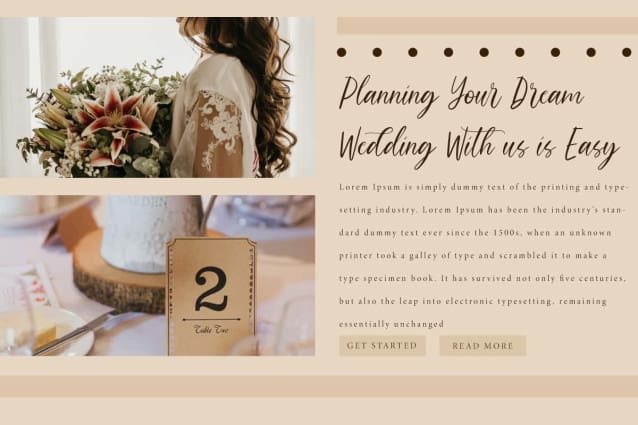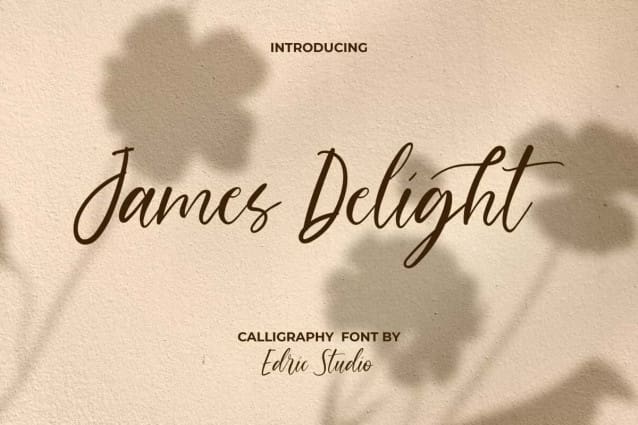
James Delight Font
James Delight Font is an organic handmade aesthetic calligraphy font that feels authentic with a personal charm. This font has been carefully and thoughtfully designed to recreate natural handwritten text. Perfectly fit for branding logos, business card, cover, headers, headline, logos, posters, quotes, stickers, title, watermarks, websites, and more.
James Delight Font comes with a full set of Uppercase and Lowercase letters, Number, Punctuation, Symbol, Ligatures and Alternates. It is a classy calligraphy type with a modern and refined look that is easy to read and exudes incredible elegance, suitable for any industries such as bridal boutique, cafes, fashion, gardening, photography, restaurant, skincare, spa salon, wedding organizer, writer, etc.